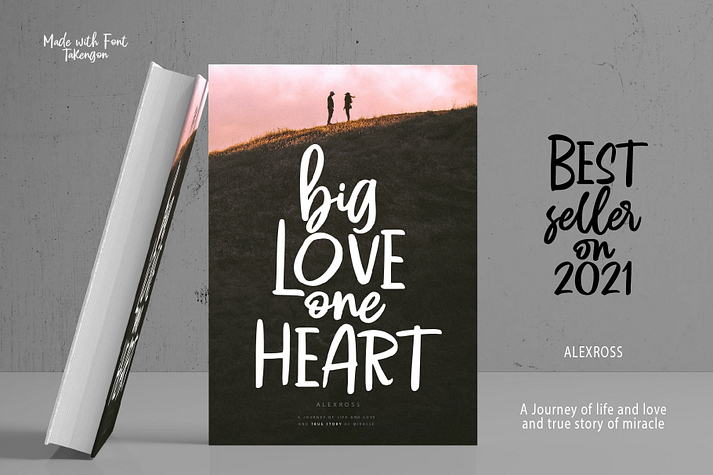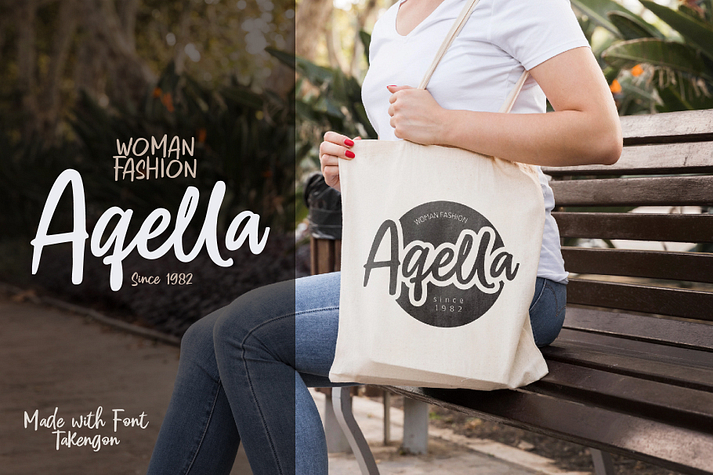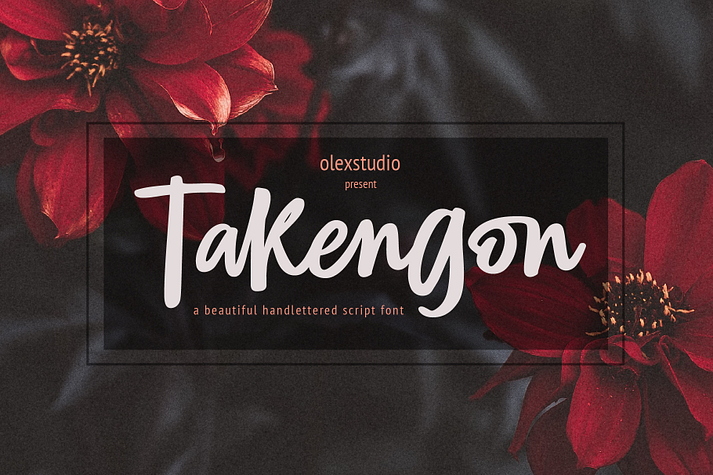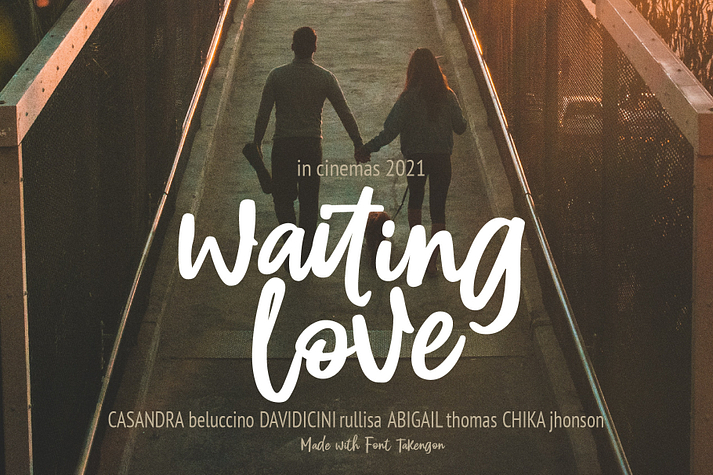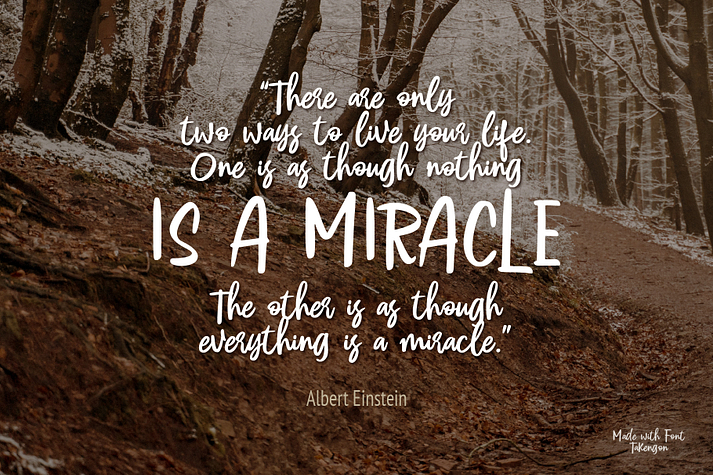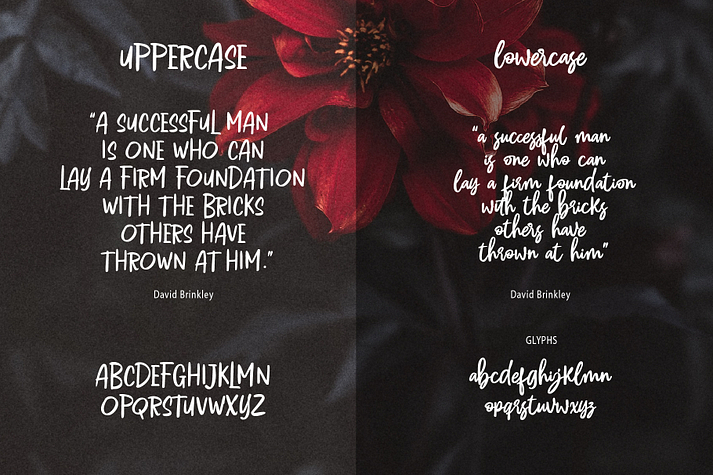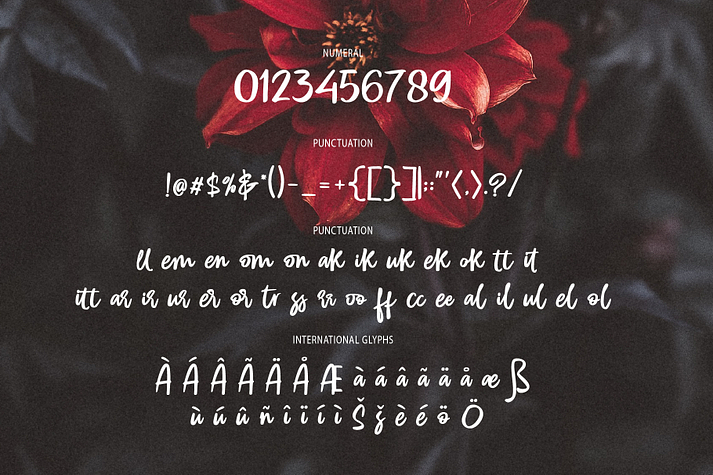
Takengon
Takengon is a font family published by olexstudio.
TAKENGON - Script is a beautiful Script Font, This Font will look gorgeous on all your designs, wedding invites, branding materials, logo’s, t-shirt, poster, business cards, quotes and all project design other.
TAKENGON - Script contains standard characters, lowercase, Alternates, Uppercase, numbers, punctuation, ligatures and international glyphs. You will receive OTF, TTF files and WEB FONT.
Foundry olexstudio